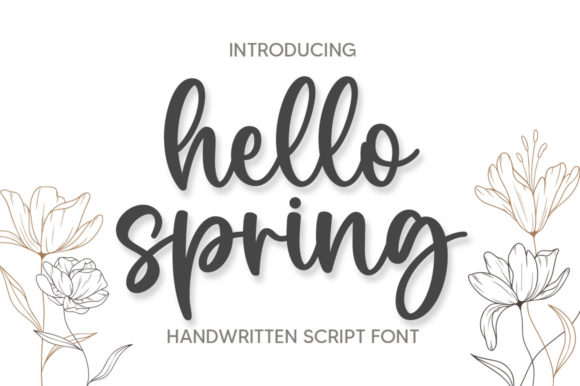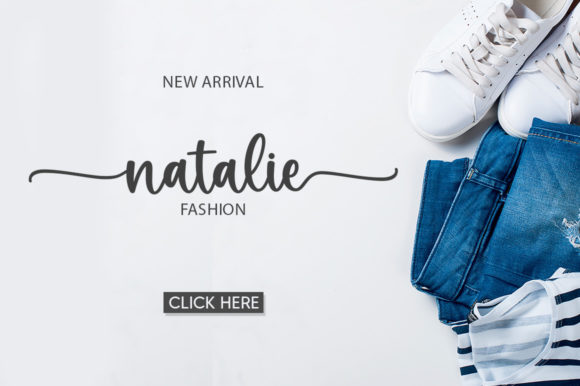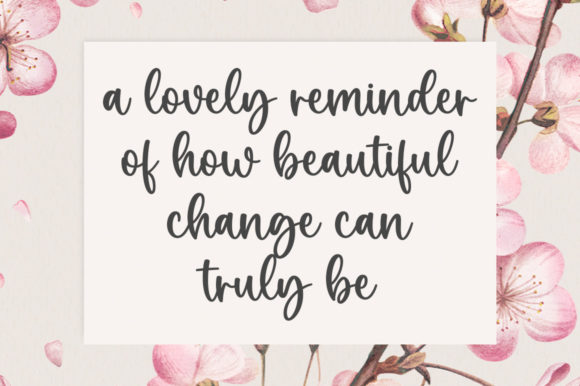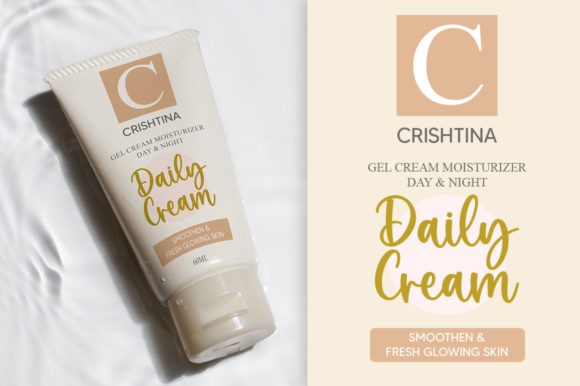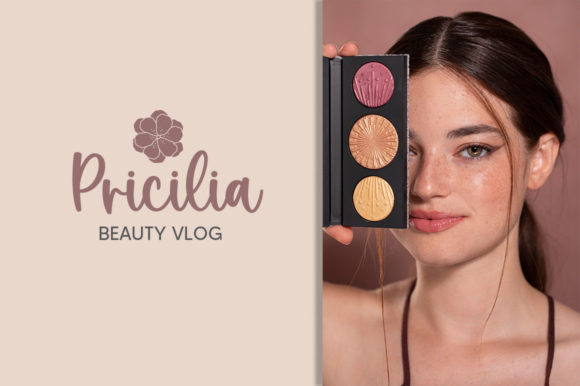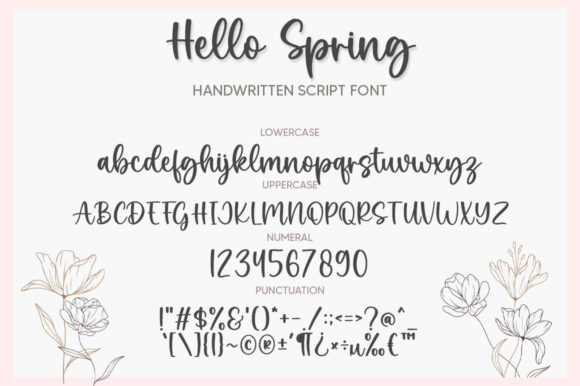
Hello Spring Font
About Hello Spring Font
“Hello Spring” is a font that encapsulates the beauty and vibrancy of the spring season with its lovely and timeless handwritten style. Its fresh and inviting appearance makes it a perfect choice for a variety of design projects where a captivating and eye-catching aesthetic is desired.
In logos, “Hello Spring” can infuse a sense of rejuvenation and new beginnings. Its lively and cheerful design conveys the essence of the season, making it an excellent choice for businesses or brands associated with nature, wellness, and positivity. The font’s handwritten charm adds a personalized touch that resonates with audiences.
For branding materials, “Hello Spring” brings a sense of optimism and warmth. Its inviting and approachable look makes it suitable for a range of products and services, from fashion and beauty to home decor and lifestyle brands. The font’s ability to evoke the feeling of springtime can create a strong emotional connection with customers.
Quotes and inspirational messages shine when presented in “Hello Spring.” The font’s timeless and handwritten style adds authenticity and personality to the content, making it more relatable and impactful. Whether used on social media graphics or printed materials, the font’s swashes and glyphs can enhance the visual appeal of the message.
The PUA encoding of “Hello Spring” offers easy access to its wide range of glyphs and swashes. This feature allows designers to explore various typographical options and create truly unique and customized designs. Whether it’s adding a flourish to a logo or embellishing a quote, the font’s versatility ensures that each project stands out.
Overall, “Hello Spring” is a font that captures the essence of the season with its lovely and timeless handwritten style. It’s a versatile choice for logos, branding, quotes, and more, offering a personalized and captivating touch to any creative endeavor. With its PUA encoding, designers can unlock its full potential and bring their visions to life with ease.